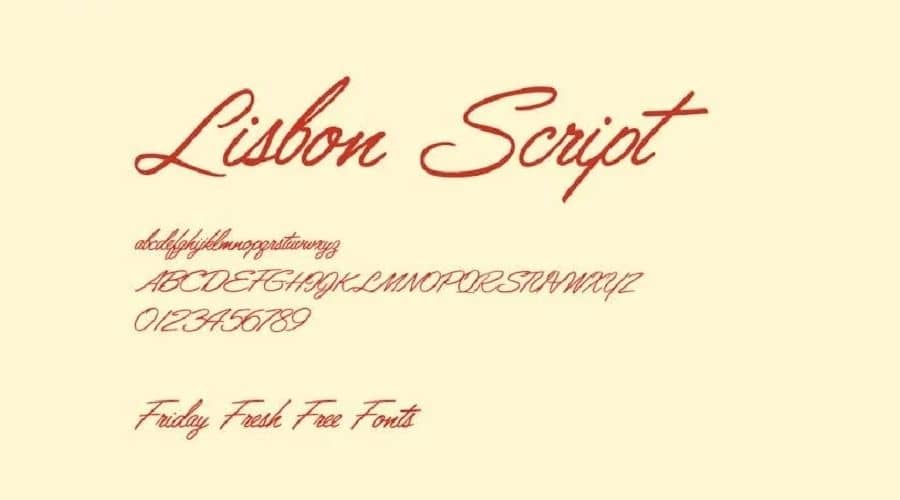
Lisbon Script Font Free
Introducing the Lisbon Script Font! A lovely Handwand Script font. Mario Arturo designed and shared Lisbon on February 3, 2018. This 1940/50s typeface is based on Michael Rau & Rosemarie Kloos-book Rau’s Schreibschriften/Script Types, published by Novum Press in 1993. Lisbon Script is the font family for this Script and Handwritten font. Regular is the Font’s subfamily designation. FontLab: OTFEXPORT is the Font’s unique identification. Lisbon Script Regular is the full font name. Version 1.00 2014 is the current version of this Font.
LisbonScript-Regular is the Postscript font name for this Font. Mario Arturo is the name of the Font’s creator. If you’re seeking for a Calligraphy-style font with a unique look and feel, this is the Font for you. You can use this Font in any Adobe design software program, including Photoshop, Premiere Pro, Illustrator, and InDesign, once you’ve downloaded it. The Lisbon Script typeface is simple to set up on both Mac and Windows. Simply click the green Get button to download the font files, then click Install to install them. It’s then immediately usable in whatever design software or application you have installed on your PC.The Font is a must-have who randomly do writing projects.
Headers, autographs, logos, bridal invites, t-shirts, letterhead, signage, news, banners, badges, and other uses are possible. The typeface can also be used for the front cover of any notebook.
It can also be used to decorate the front of any form of the greeting card. The free TTF font is a popular choice among web designers, graphic artists, and ordinary computer users. Lisbon Script Font Free is also an excellent choice for the pages of any history or story-based publications.